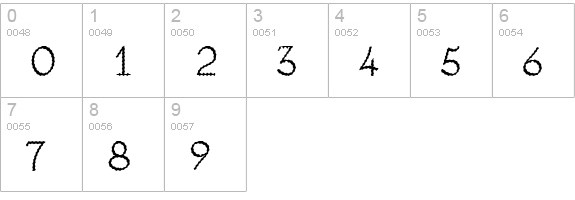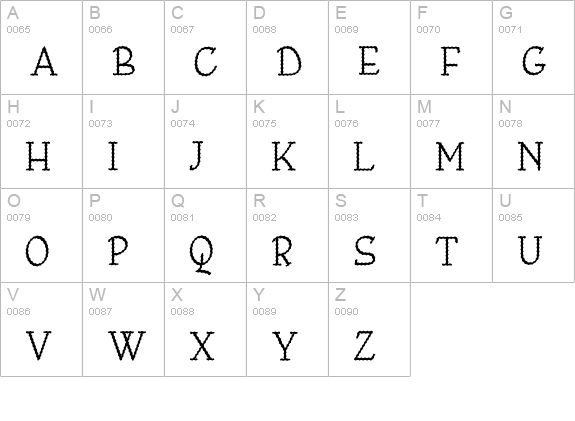
AnarckhieJiggled Font Details
Introducing AnarckhieJiggled font, a whimsical and playful typeface that is sure to add a touch of fun to your designs. This font features quirky jiggles and irregular shapes that give it a unique and dynamic appearance. Whether you're working on a project that calls for a lighthearted touch or simply want to inject some personality into your typography, AnarckhieJiggled font is the perfect choice. The best part? AnarckhieJiggled font is completely free to download at FontsMarket.com. That's right, you can access this charming font at no cost and use it in your personal and commercial projects without any restrictions. So why wait? Add a dash of creativity to your designs with AnarckhieJiggled font today!